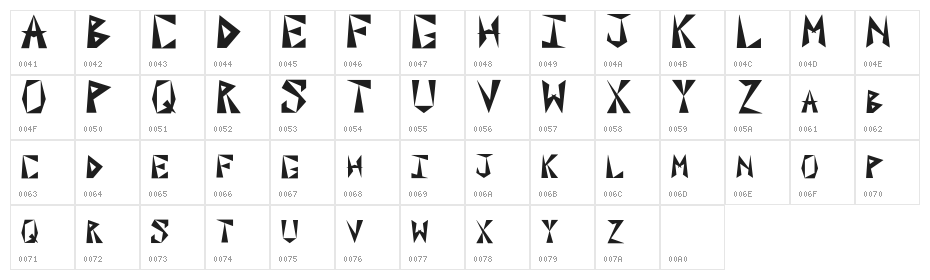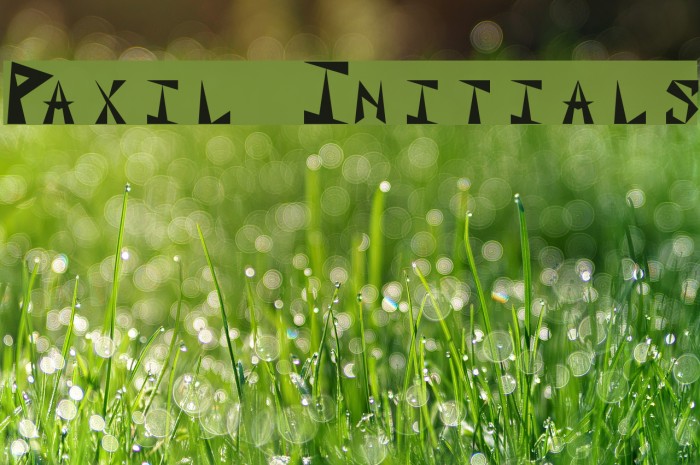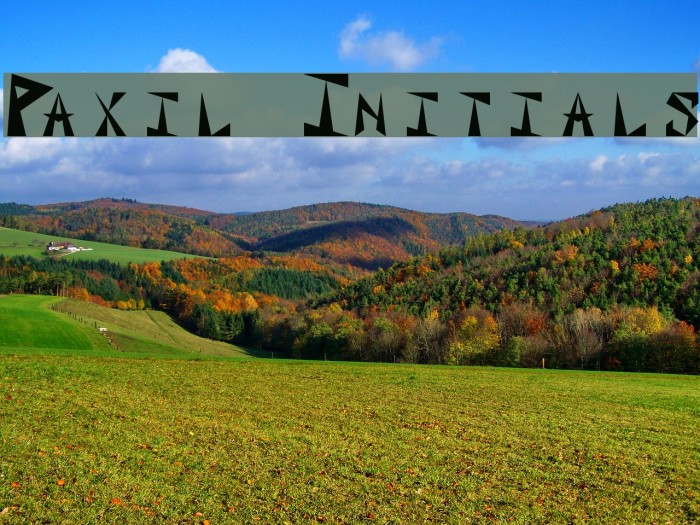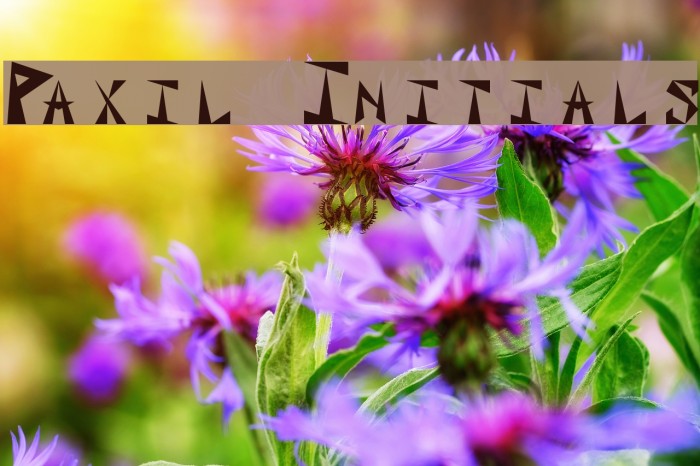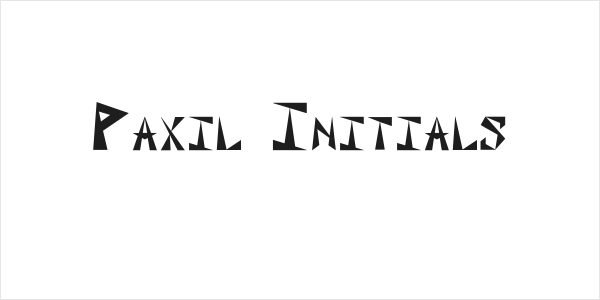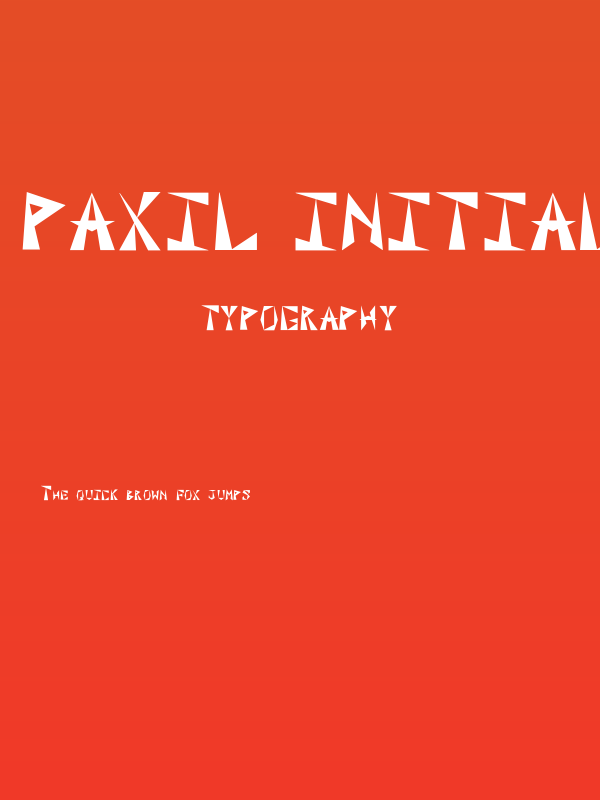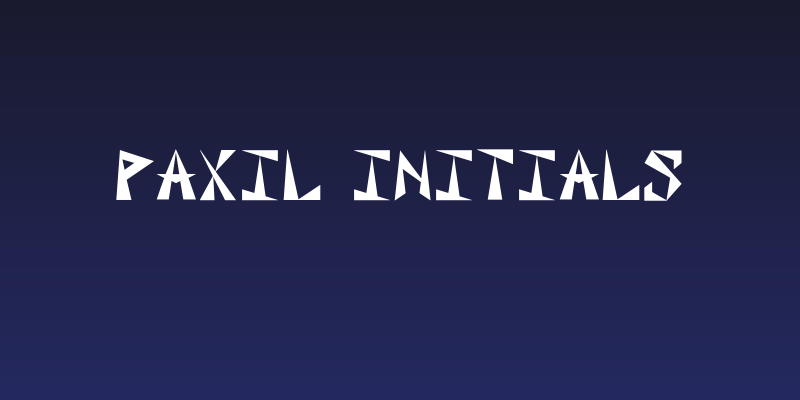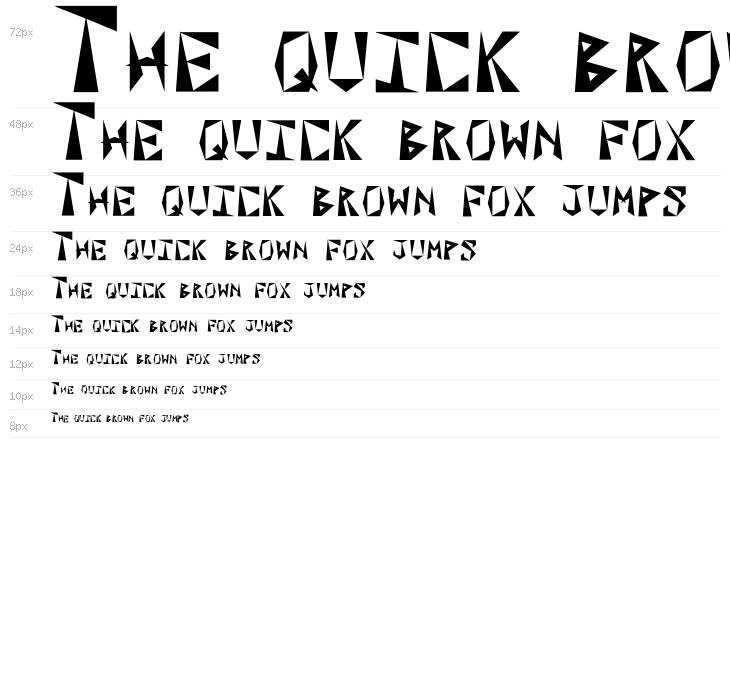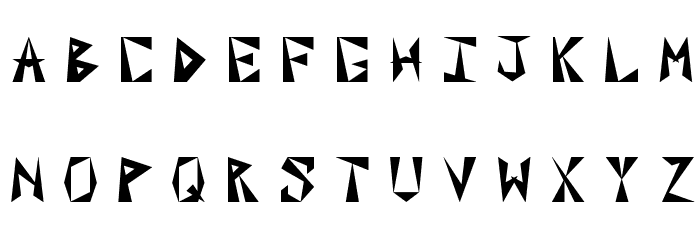
Paxil Initials Font
Paxil Initials Description
This font features a bold and angular design, characterized by sharp, geometric shapes that create a striking and edgy appearance. The uppercase and lowercase letters maintain a consistent style, with each character exhibiting unique triangular cutouts and angular edges. The font's distinct, fragmented look gives it a modern and avant-garde feel, making it ideal for projects that require a bold statement. The numbers and special characters follow the same design principles, ensuring a cohesive and unified appearance across all elements.
| Proposed Projects | Ideal for branding, posters, album covers, and any project needing a bold, modern aesthetic. |